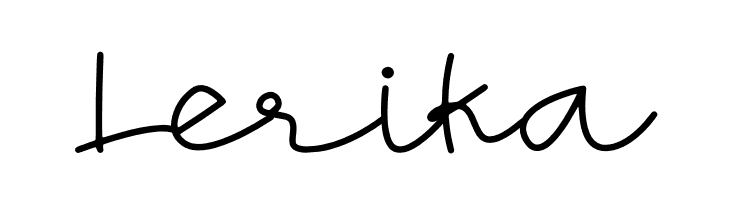
A playful, handwritten-style font with dynamic, cursive-like strokes.
A playful handwritten font with fluid strokes and a casual, friendly style.
A playful, casual handwritten font with fluid, connected letterforms.
A playful, handwritten font with tall, thin strokes and a casual style.